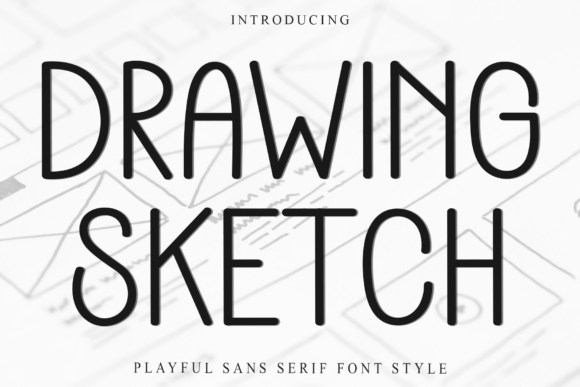
Unwrapping the Magic of the Holiday Season: Drawing Sketch Font
As you sit at your desk, surrounded by twinkling lights and the warmth of a crackling fire, the urge to create something special strikes. The holiday season is a time for joy, love, and celebration – and what better way to capture its essence than with the perfect font?
Enter Drawing Sketch Font, a festive and merry typeface that brings a touch of enchantment to your designs. With its decorative elements and whimsical flair, this font is perfect for greeting cards, gift tags, and holiday-themed projects. Its cheerful and nostalgic ambiance is sure to make your words shine, and its PUA encoding makes it easy to access all the amazing glyphs and ligatures.
For designers, Drawing Sketch Font is a valuable addition to any collection, offering a unique and creative way to express the magic of the holiday season. Whether you’re working on a project for a client or simply want to add some festive flair to your personal designs, this font is sure to delight.
Drawing Sketch Font Key Features
- Unique Characteristics: Features a hand-drawn, sketch-like aesthetic, adding a touch of creativity and personality to designs.
Design Review: Drawing Sketch Font
I recently had the chance to work with the Drawing Sketch Font, and I must say it’s an interesting addition to any digital designer’s toolkit. Here’s what I liked:
- ✨ The font’s imperfect, hand-drawn aesthetic adds a unique touch to digital designs. It’s perfect for creating a sense of whimsy or nostalgia.
- ✨ The font is highly customizable, allowing designers to adjust the size, color, and style to fit their needs.
- ✨ The font is relatively lightweight, making it easy to integrate into projects without slowing down performance.
- ⚠️ The font can be a bit difficult to read at smaller sizes, making it challenging to use in situations where text needs to be concise.
- ⚠️ The font’s imperfections can sometimes make it look inconsistent or messy, which may not be suitable for all design projects.
Overall, I think the Drawing Sketch Font is a great addition to any designer’s toolkit, but it’s not without its limitations. If you’re looking to add a unique touch to your designs, this font is definitely worth checking out. However, be aware of its potential drawbacks and use it judiciously.
Practical Application Guide: Drawing Sketch Font
Sketch fonts are perfect for creating a casual, handwritten look in designs such as invitations, social media graphics, and blog posts. They can also be used to add a personal touch to presentations and reports.